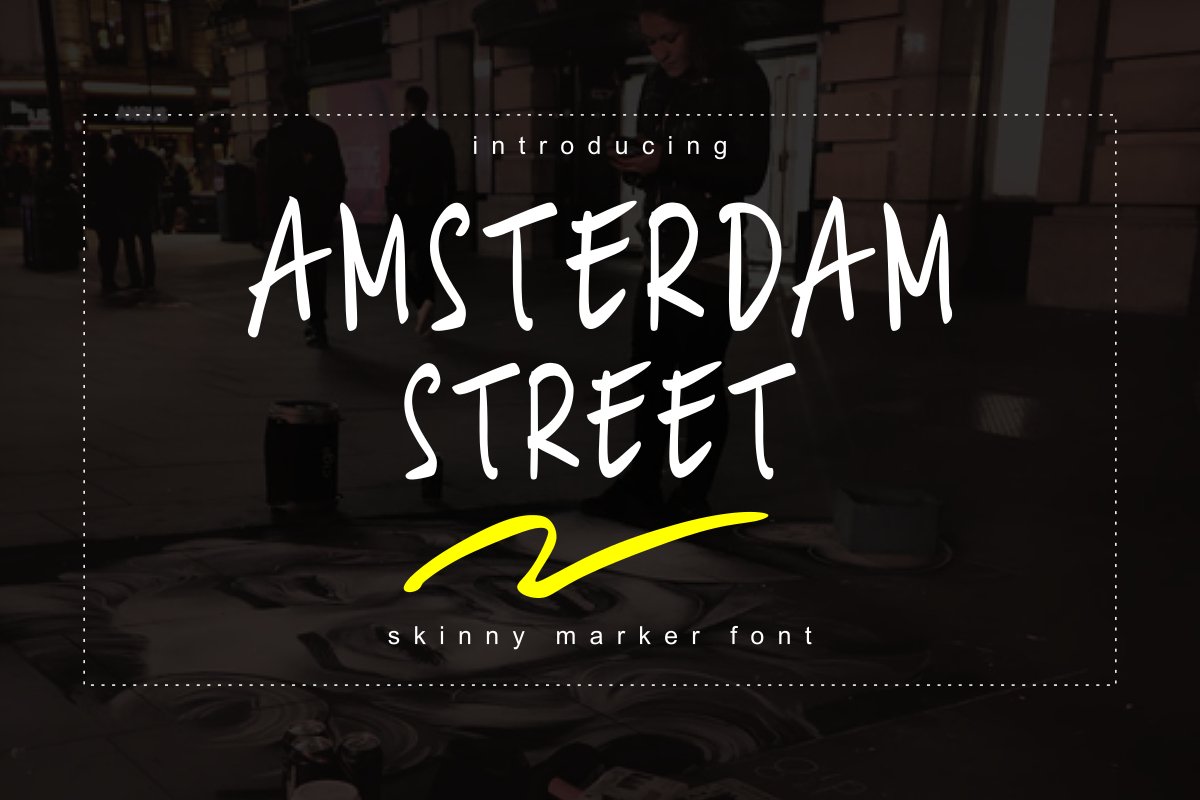
Amsterdam Street
Introducing Amsterdam Street - A handwritten thin marker font.
Great for quotes,social media, merchandises, mugs, tshirts, stickers, comic, cartoon and more!